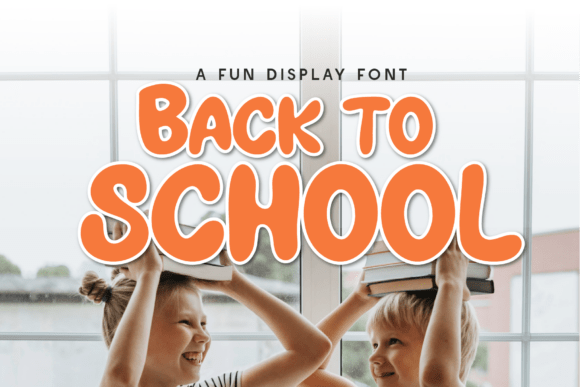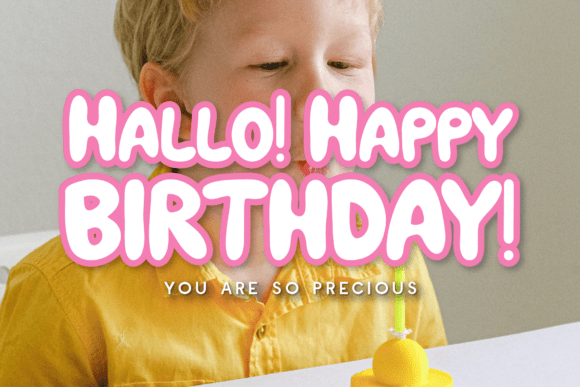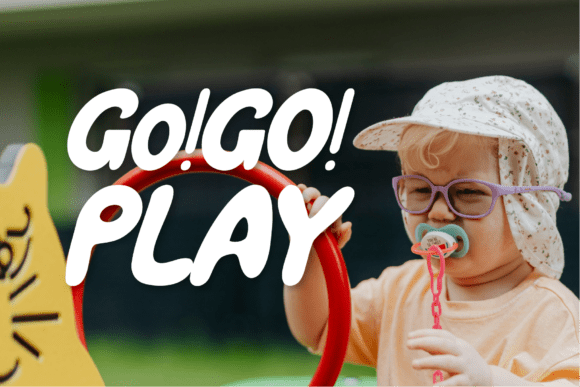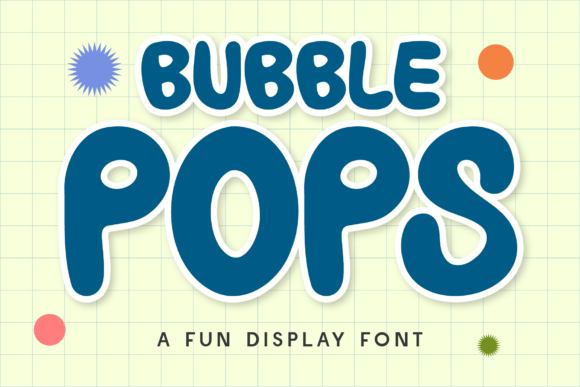
Introduction to Bubble Pops Font
**Bubble Pops** – A Playful Chunky Display Font Bring your designs to life with Bubble Pops, a cheerful display font full of bold curves and bouncy energy.
Crafted with soft rounded edges and a thick, juicy style, Bubble Pops instantly adds fun, friendliness, and approachability to any project Perfect for kids’ designs, branding, logos, games, birthday invitations, school projects, playful packaging, and anything that calls for a pop of joy.
Key Features of Bubble Pops Font